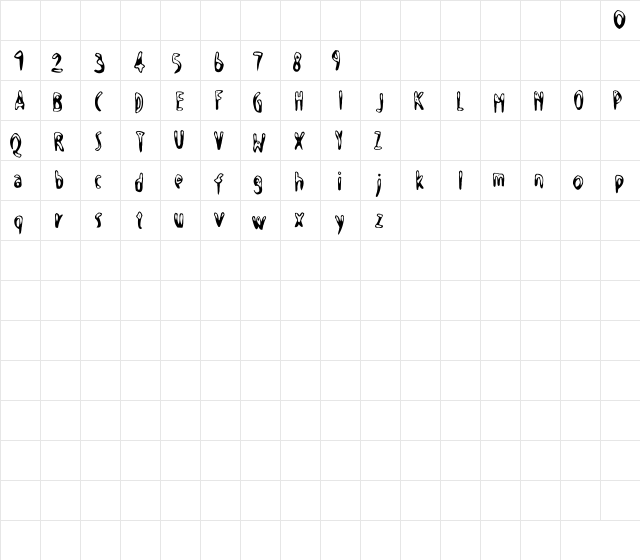
SnowFont Regular
| Foundry | iGraphicz |
| Designer | ilse siengalewicz |
Design Context for SnowFont Typeface
SnowFont is a composed and adaptable typeface that performs quietly and consistently across a wide range of design contexts.